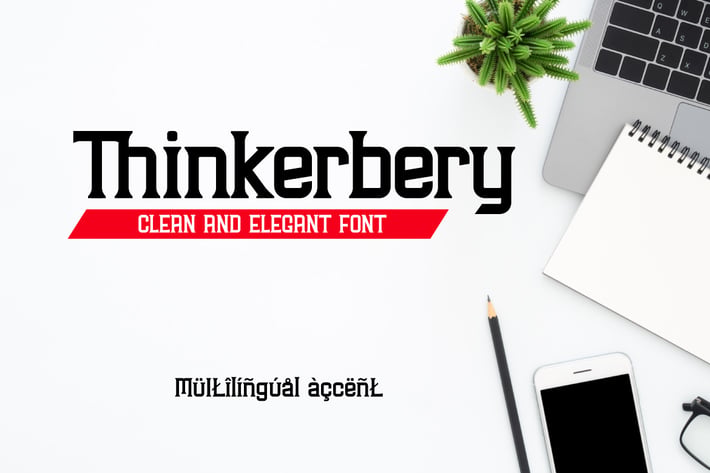
Thinkerbery - Modern Clean and Elegant Serif Font
Introducing you THINKERBERY, a modern clean and elegant serif font.
If you are looking for a formal yet modern font, you come to the right place!
This font brings elegant and modern ambience for your words.
It's suitable for office, formal occasion, flyer, poster, book cover, card, merchandise, etc.
Thinkerbery also has lowercase and uppercase style.
+ Uppercase
+ Lowercase
+ Number
+ Punctuation
+ Multilingual Accent